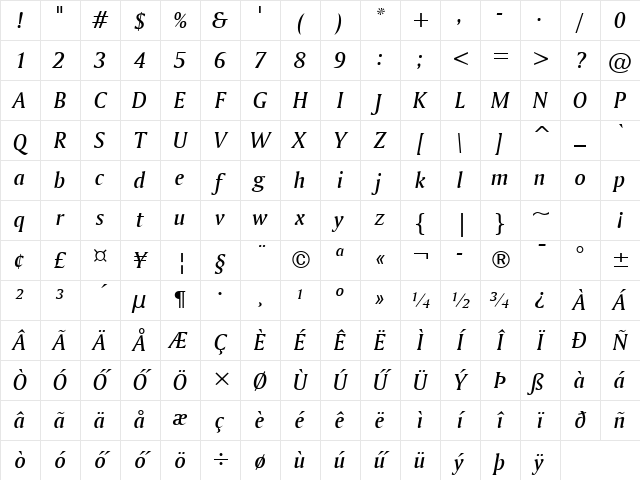
Hu_Amerm Regular
Design Context for Hu_Amerm
Hu_Amerm is a composed and adaptable typeface that performs quietly and consistently across a wide range of design contexts.